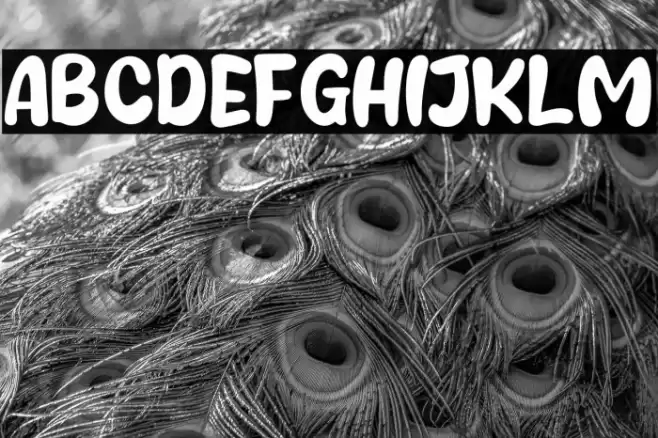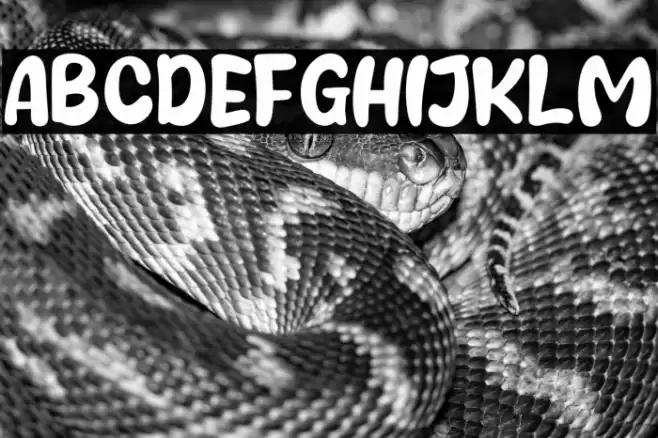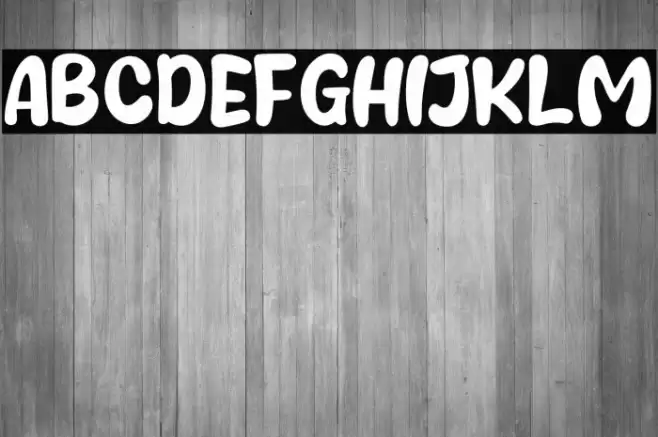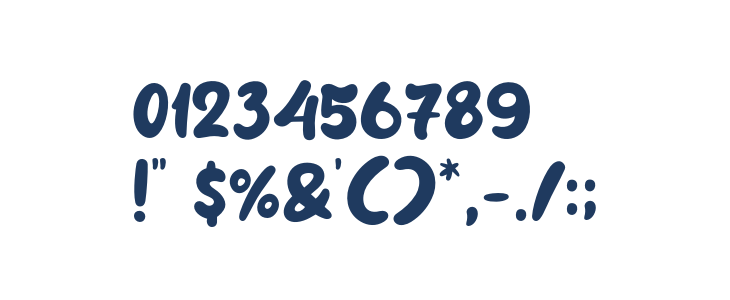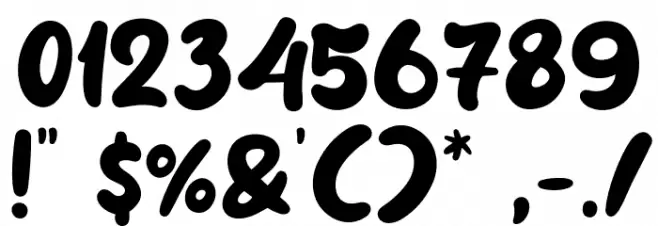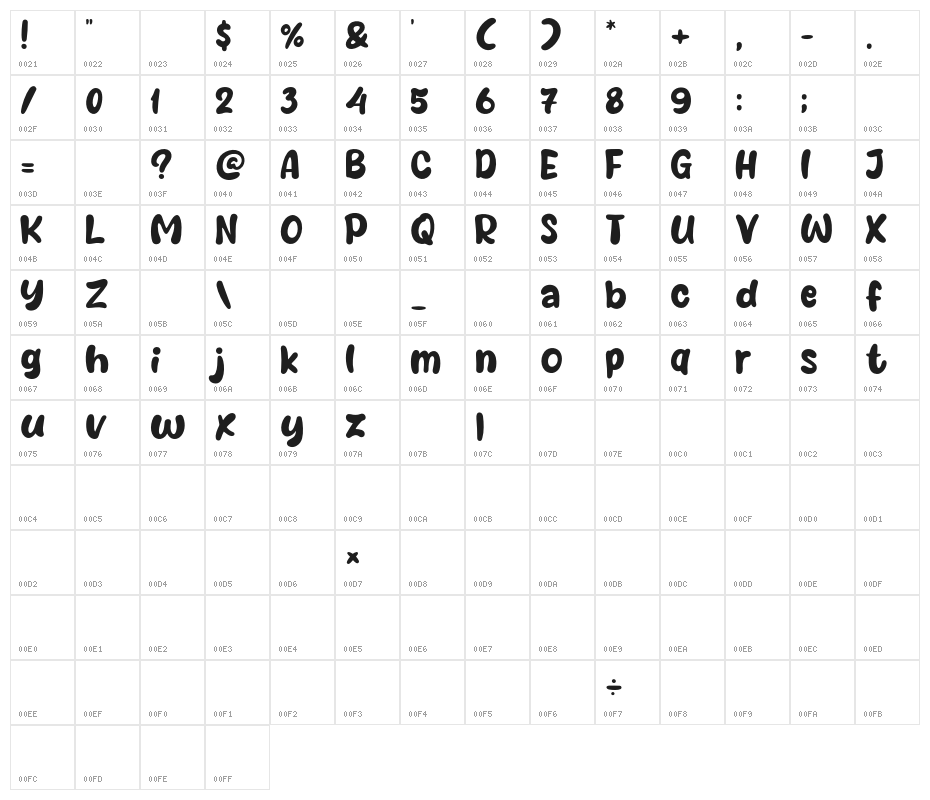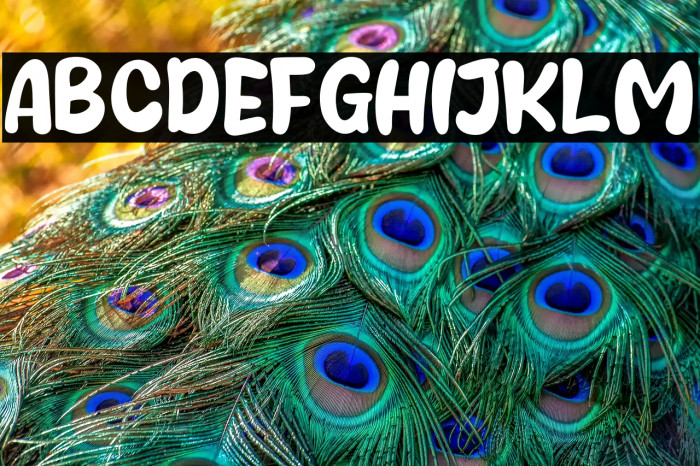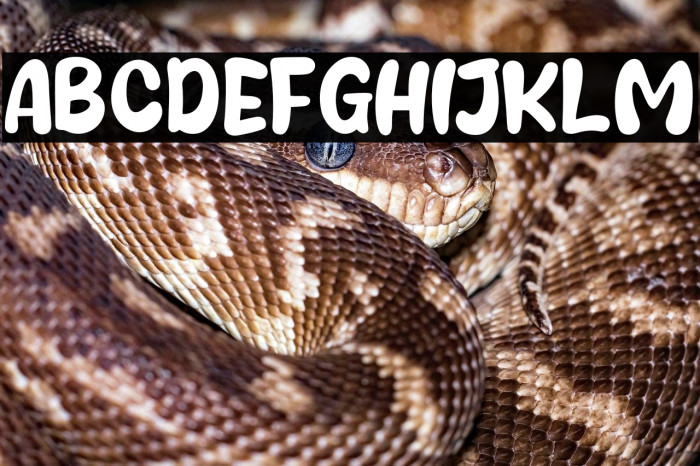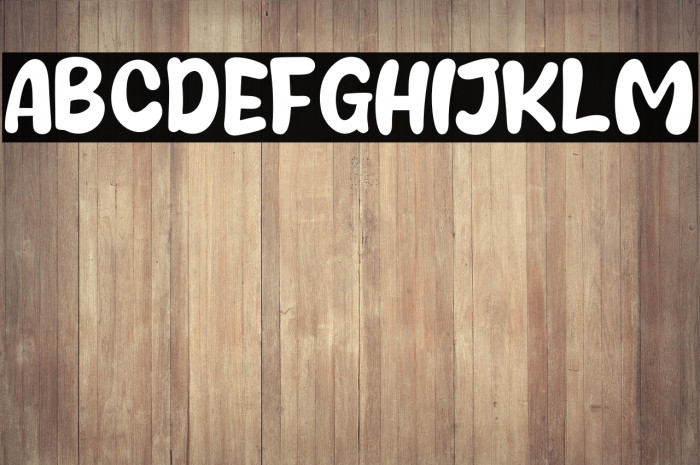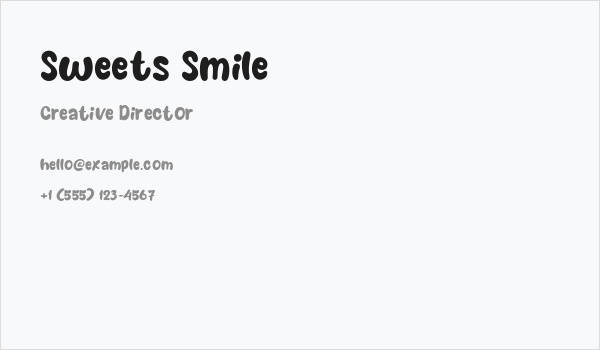
Sweets Smile Font
Sweets Smile Description
This playful and whimsical font features bold, rounded characters that exude a sense of fun and cheerfulness. The letters are thick and bubbly, with a consistent stroke width that gives them a cartoonish and friendly appearance. The overall design is informal, making it perfect for projects that aim to convey a sense of joy and lightheartedness. The characters are well-spaced, ensuring readability while maintaining their playful charm. This font is ideal for children's books, party invitations, and any creative project that requires a touch of whimsy.
A playful, bold, and rounded font with a whimsical, cartoonish style from Uncategorized fonts.
- Font: Sweets Smile
- Proposed Projects: Children's books, party invitations, playful branding, greeting cards.
- Overall Style: Playful, Whimsical
- Use Case: Headlines, Logos, Creative projects